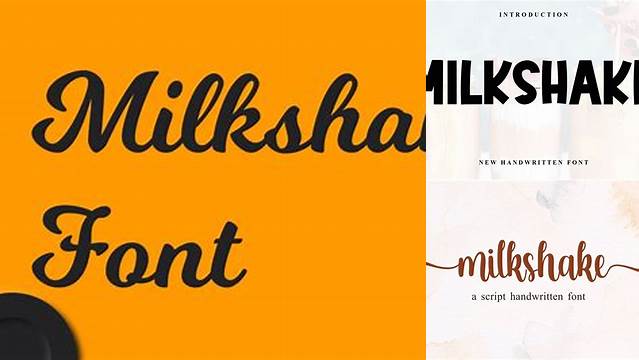
Hey design enthusiasts! Are you on the hunt for a Milkshake Regular font free download? You've come to the right place! This article dives deep into everything you need to know about this charming font, from where to snag it without spending a dime to how to use it to make your designs pop. We'll explore its unique characteristics, best uses, and even some design tips to get you started. So, grab a virtual milkshake, get comfy, and let's get into it! This is all about Milkshake Regular font free download, and how to get the best use out of it.
What Makes Milkshake Regular Font Special?
Alright, guys, let's talk about what makes Milkshake Regular so darn appealing. This font is a delightful blend of classic and modern, with a touch of whimsy that makes it stand out. First and foremost, its handwritten style gives it a personal, friendly feel. It's like a virtual hug in font form! The strokes are smooth and slightly uneven, which adds to its organic and approachable vibe. This unique quality ensures your text feels authentic, as if it were penned by hand. The font's readability is another plus. It's easy on the eyes, making it perfect for everything from headlines to short paragraphs. Unlike some fancy fonts that sacrifice legibility for style, Milkshake Regular strikes a perfect balance. It’s versatile enough to use across various design projects without compromising readability. When you get a Milkshake Regular font free download, you are getting a font that can add a lot of character to your work.
One of the things that truly sets Milkshake Regular apart is its ability to evoke a sense of nostalgia. Think of vintage signage, retro packaging, and old-school advertisements – this font fits right in. This is because it draws inspiration from classic script fonts while maintaining a contemporary feel. This means you can use it to create a sense of familiarity and comfort, which is great for branding. Think of the feeling you get when you see something familiar. It creates an instant connection with your audience. The font has a certain warmth that resonates with viewers. It’s not just a font; it’s an experience. The design is so well-rounded that it can bring a certain something to the table in any project. You can use it to create engaging content. This helps to make you stand out, especially in a world of digital design. You will find that it is an amazing font that can bring a lot to the table. When you get the Milkshake Regular font free download, make sure to get creative and make it your own!
Furthermore, Milkshake Regular is incredibly adaptable. While it has a distinct personality, it doesn't overpower other design elements. You can pair it with other fonts to create a diverse and balanced design. For example, you can use it for your headings while using a simple sans-serif font for body text. That combination will give your design a polished and professional look. It’s also important to note that the font comes with a range of characters, including uppercase and lowercase letters, numbers, and punctuation marks. This comprehensive set ensures that you have everything you need to bring your ideas to life, no matter the project's scope. This will help bring your vision to fruition.
Creative Ways to Use Milkshake Regular Font
Alright, time to get those creative juices flowing! Milkshake Regular is such a versatile font that the possibilities are endless. Here are some ideas to get you started:
- Logos and Branding: Its friendly, handwritten style is perfect for creating logos that feel approachable and unique. It's great for brands that want to convey warmth and personality. Think cafes, boutiques, and handmade product brands. It will help create a strong brand identity. The font gives a friendly feel that will help you resonate with your audience. This will help you gain more recognition.
- Headlines and Titles: This font will instantly grab the reader's attention. It's perfect for websites, social media posts, and print materials. You can use it to create eye-catching headlines. That can draw viewers in and keep them engaged. You can also use it for book titles. It makes the book more enticing. The font's unique style makes titles memorable and helps make your brand stand out. It's a valuable asset for anyone looking to boost their visual communication.